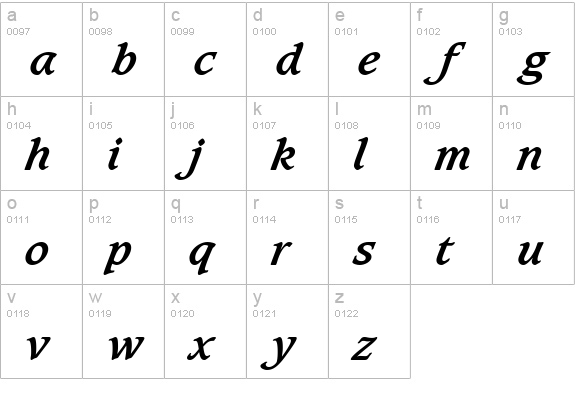
Caxton LT Bold Italic is a strong, high-contrast, italic variant in the Caxton typeface family \xE2\x80\x94 well suited to headlines, attention-grabbing titles, and strong calls-to-action.
Caxton LT Bold Italic font is a striking and versatile typeface that exudes sophistication and elegance. Its bold and italic design adds a touch of drama and flair to any project, making it perfect for headings, titles, and other display purposes. The strong, confident letterforms of Caxton LT Bold Italic demand attention and command respect, making it an ideal choice for projects that require a bold and impactful statement. What sets Caxton LT Bold Italic font apart is not just its design, but also the fact that it is available for free download at FontsMarket.com. This means that you can easily access this stylish and eye-catching font without any cost, making it a valuable addition to your font collection. Whether you're working on a branding project, a poster design, or a website layout, Caxton LT Bold Italic font will help you make a bold statement and stand out from the crowd. Download it for free today and elevate your designs with this sophisticated and powerful typeface.